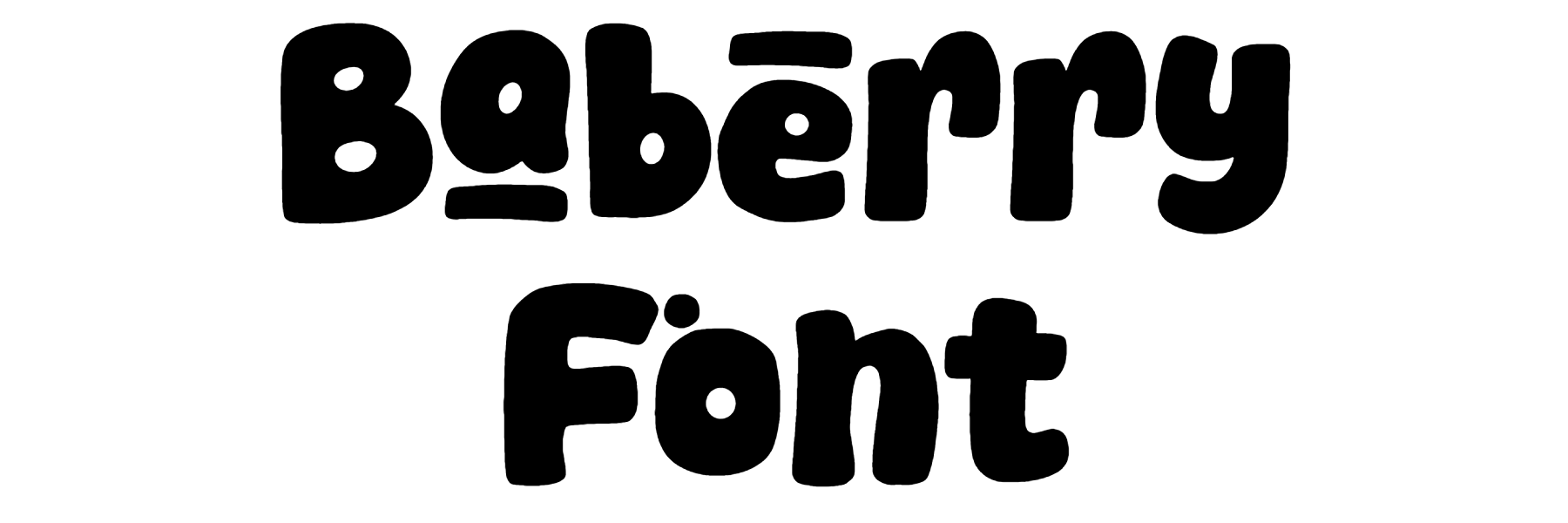
Baberry
Baberry is a cartoon font created by Khurasan (2024). Its bouncy, rounded letters feel playful, like lettering from a cartoon or a comic book. It's a free download, and you can try it with your own text in the preview above first.
What You Can Type With Baberry
Baberry covers the full alphabet in upper and lowercase, plus all ten numbers, so you can set names, dates and prices without switching fonts. Everyday marks like &, !, ? and @ are there too. There are no accented letters like é or ñ, so it's best kept to English text.
Where Baberry Works Best
Baberry is a natural fit for kids' books, birthday invites and fun YouTube thumbnails. Cartoon fonts are great for short, fun lines. If you place it over a busy photo, add a thick outline or a drop shadow so it stays readable.
Who designed Baberry font?
Does Baberry support accented letters?
No. Baberry has no accented letters such as é, ñ or ü, so it's best for English text.